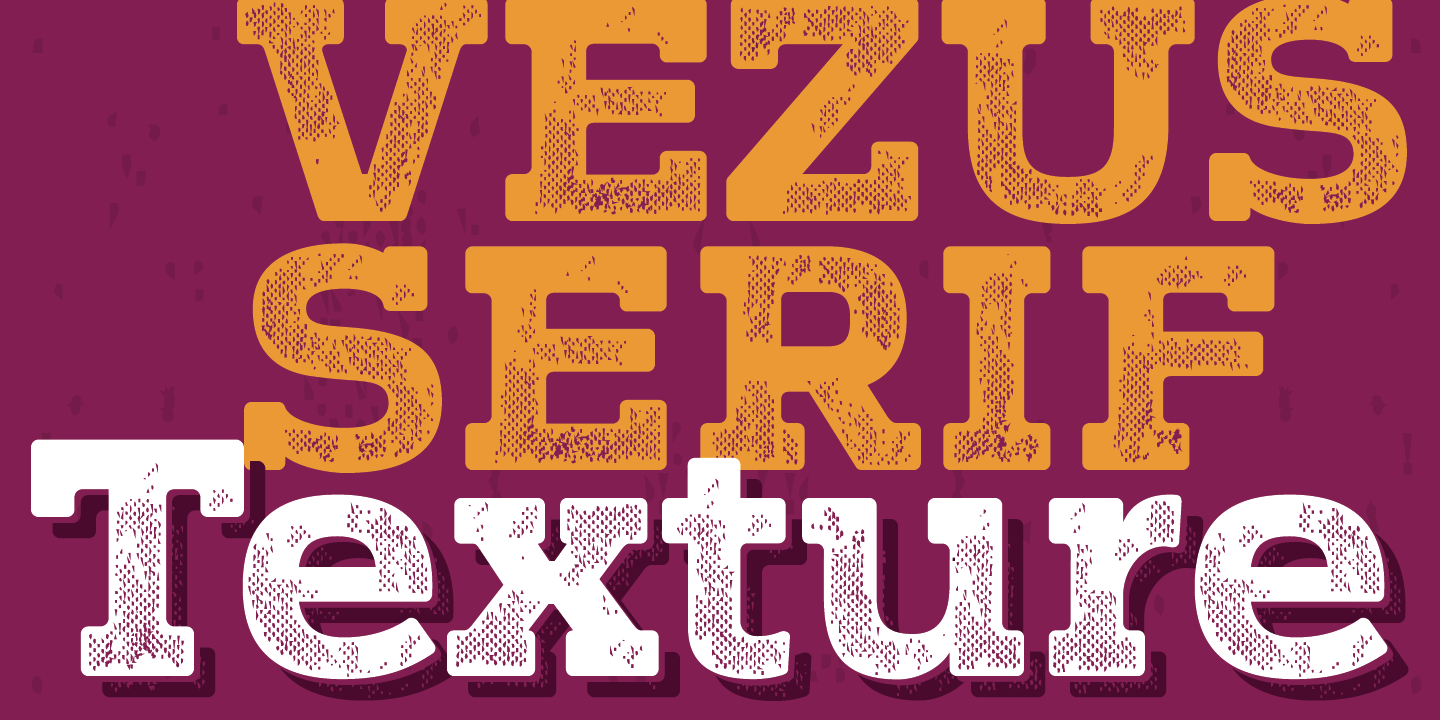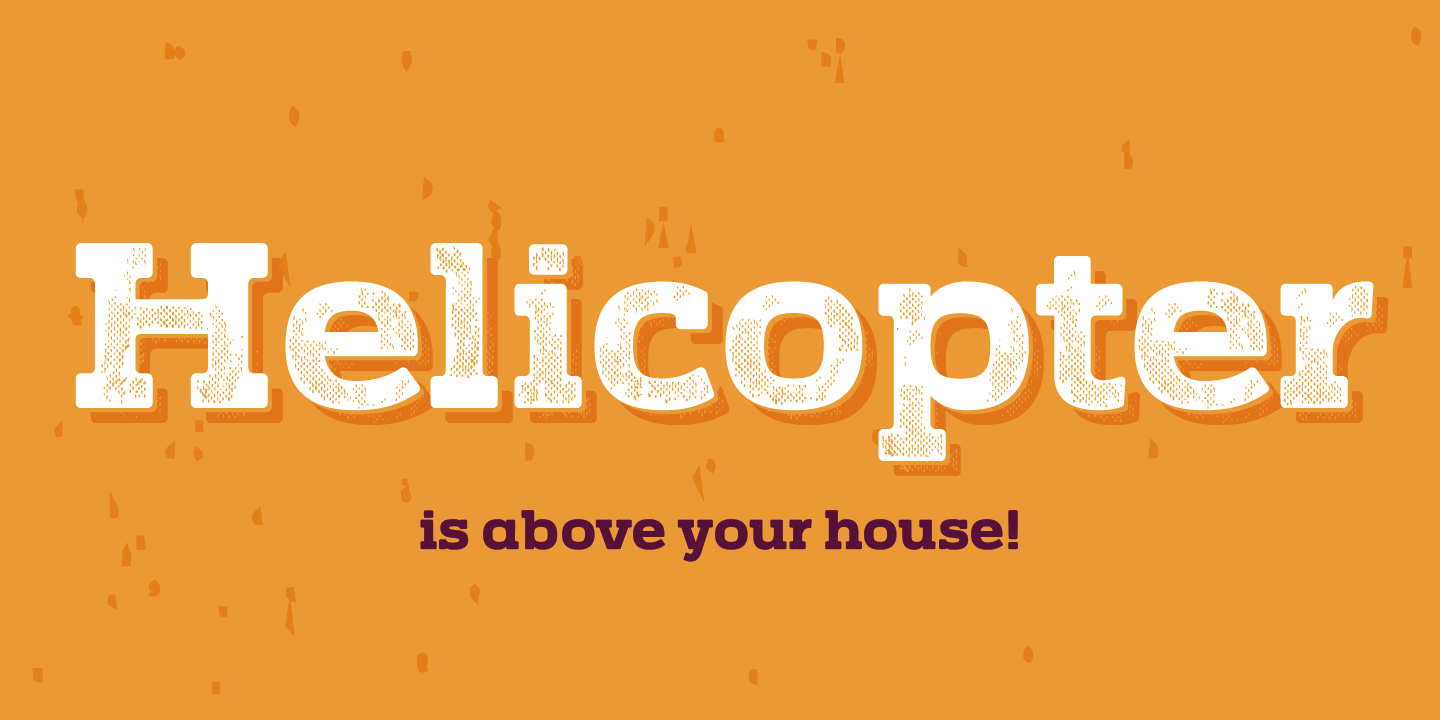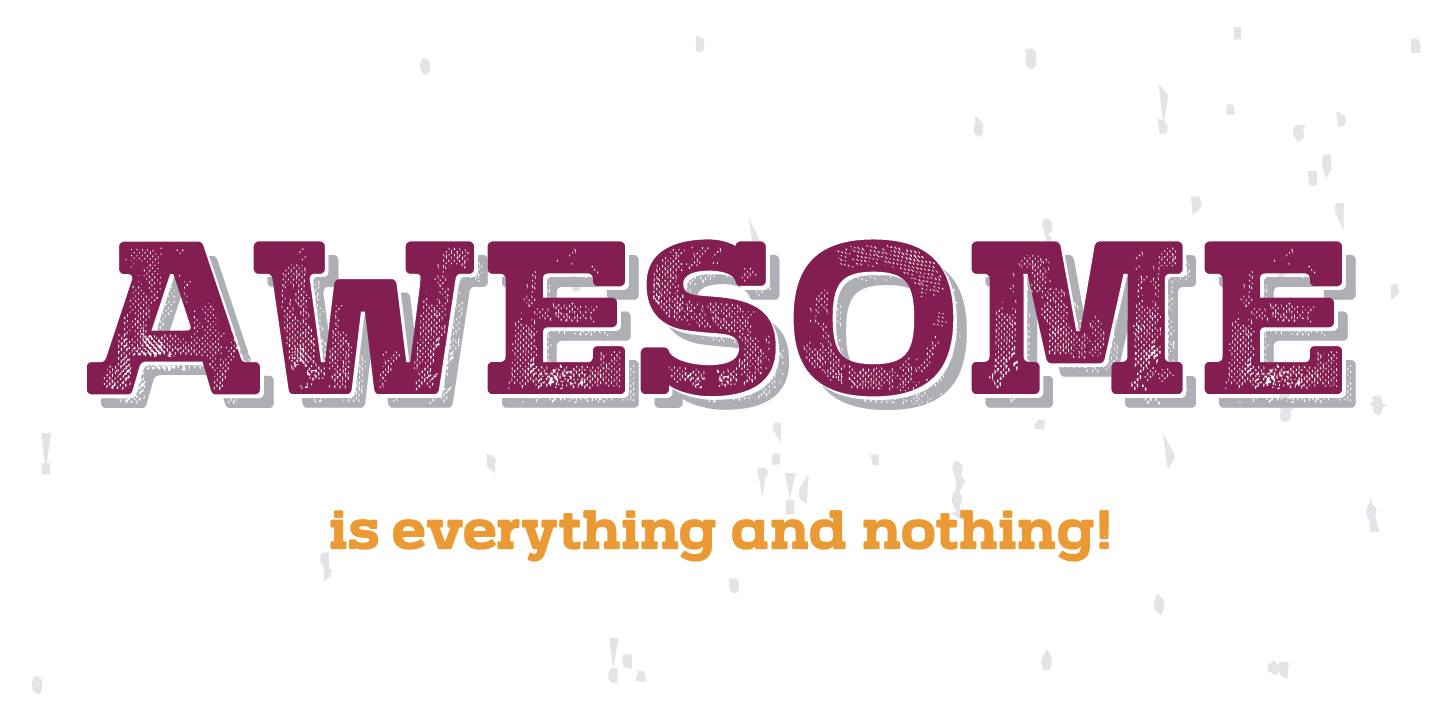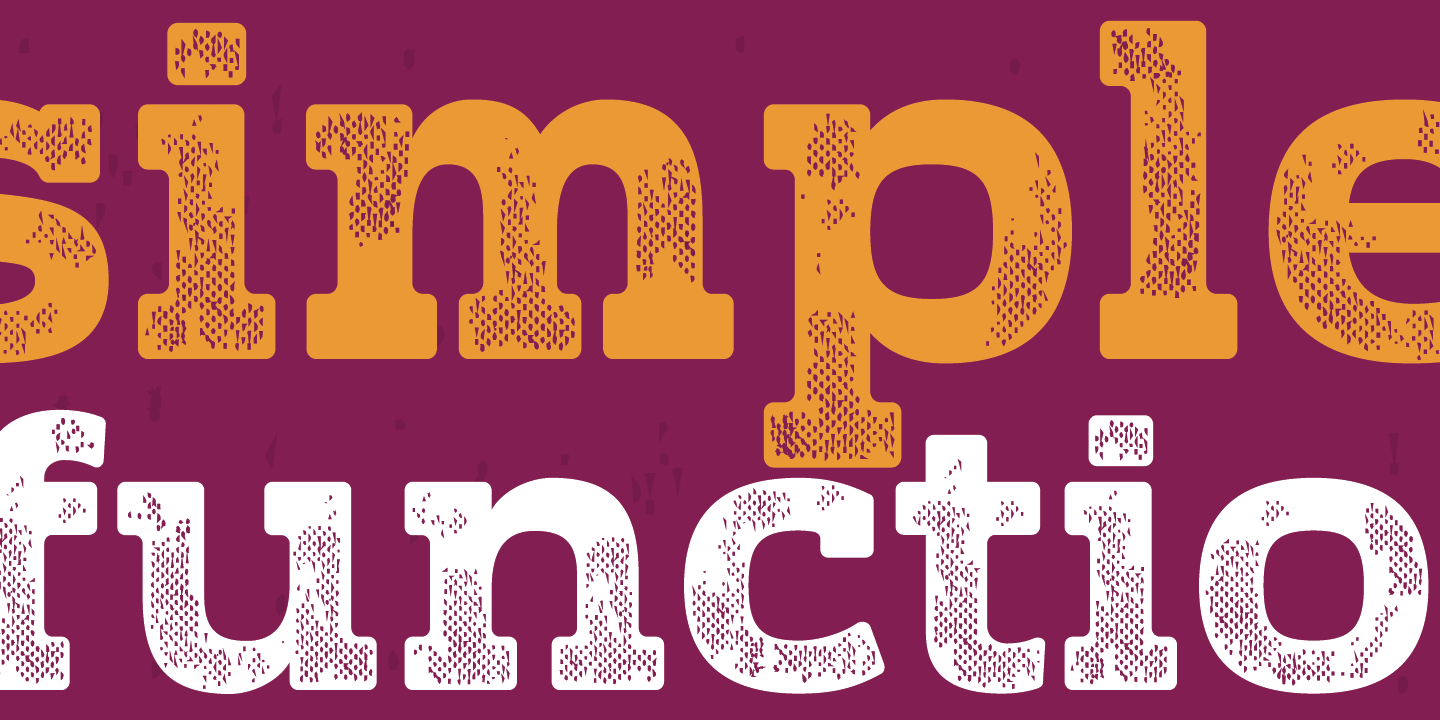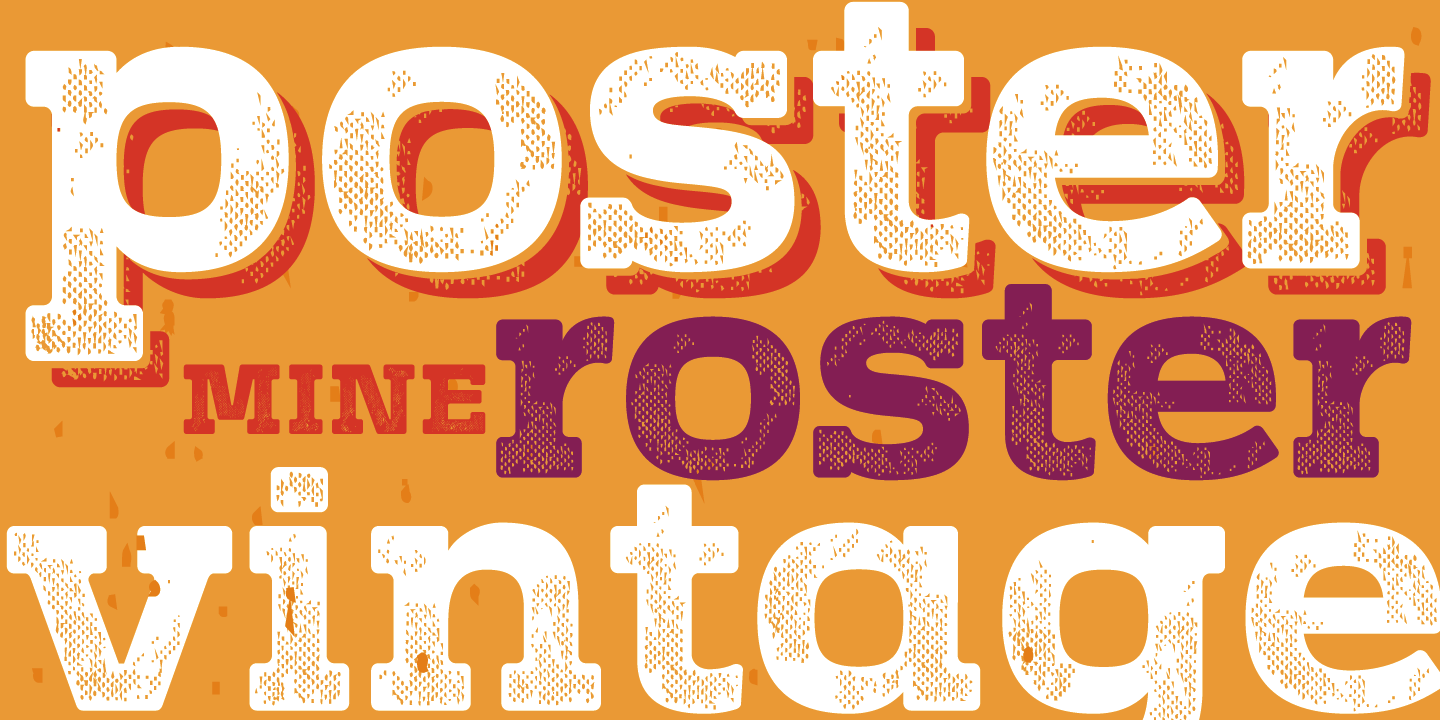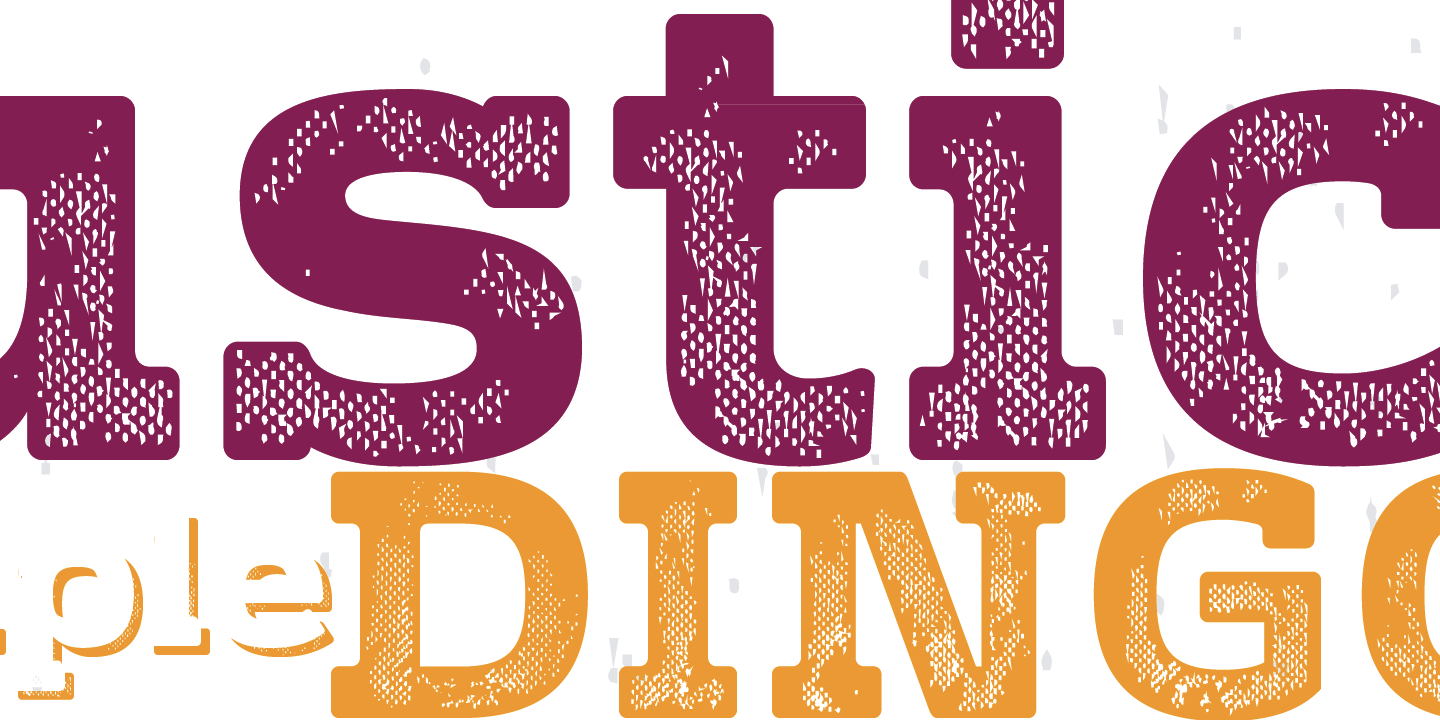
Vezus Serif Texture is as the name says itself, textured version of Vezus Serif font family and as that, it's compatible with Vezus Serif Black. It is adviced to be used as desktop font only.